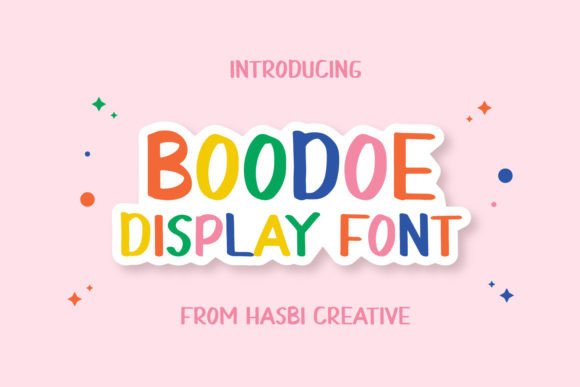
The Ultimate Guide to Boodoe Font: Adding a Playful Touch to Your Designs
Boodoe Display Font is a super fun and playful hand-lettered typeface that’s perfect for adding a personal touch to your designs. In this article, we’ll dive into the world of Boodoe, exploring its features, uses, and some practical tips on how to make the most of it.
An Honest Review of Boodoe Font
What I Love About Boodoe Font ✨
- 🎉 Playful and energetic vibe: Boodoe Font has a unique, hand-lettered feel that’s perfect for designs that need a bit of personality.
- ✅ Highly versatile: Use it for headings, flyers, greeting cards, product packaging, book covers, printed quotes, logotypes, apparel designs, album covers, and more!
- 💻 Easy to read: Despite its playful nature, Boodoe Font is surprisingly legible, even at smaller sizes.
- 👍 Great for creative projects: Boodoe Font is ideal for designers, crafters, and creative hobbyists looking to add a personal touch to their work.
- ⚠️ Limited use for body text: Boodoe Font is best used for headings and titles, as it may not be suitable for longer blocks of text.
- ⚠️ May not work well for formal designs: Boodoe Font is playful and fun, so it may not be the best choice for more formal or professional designs.
- Take advantage of OpenType features, such as glyphs and stylistic alternates, to add more variety to your text.
The Backstory of Boodoe Font
Boodoe Font was designed by a talented type designer who wanted to create a font that would bring a smile to people’s faces. With its playful, hand-lettered feel, Boodoe Font is perfect for designers who want to add a bit of personality to their work.
Q: What is Boodoe Font?
Boodoe Font is a super fun and playful hand-lettered typeface that’s perfect for adding a personal touch to your designs.
Q: Is Boodoe Font easy to read?
Yes, Boodoe Font is surprisingly legible, even at smaller sizes, making it perfect for designs that need a bit of personality without sacrificing readability.